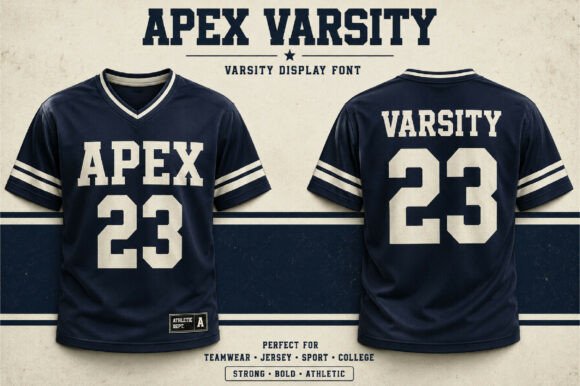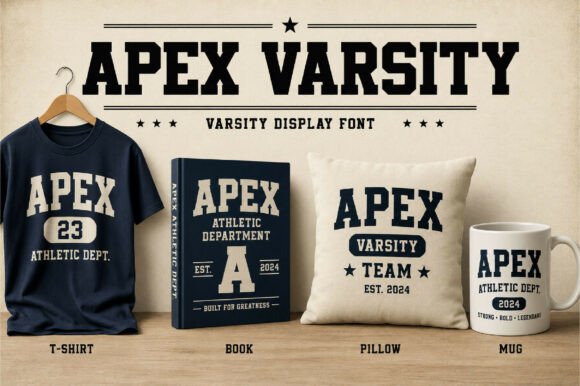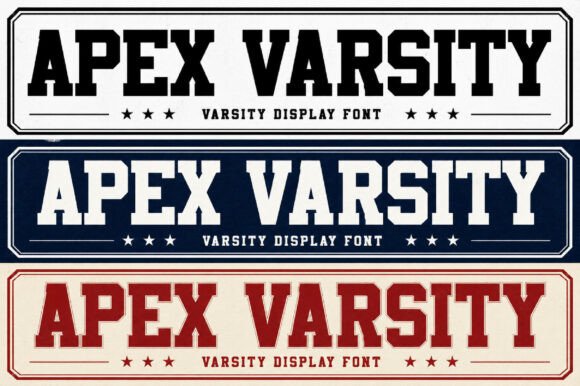
Apex Varsity Font: Unleash the Power of Sports Typography
In the world of design, typography plays a crucial role in conveying the message and tone of a project. When it comes to sports-related designs, a bold and confident font is essential to capture the energy and competitive spirit of the game. This is where Apex Varsity Font comes in – a powerful display font inspired by classic college, varsity, and athletic lettering.
Apex Varsity boasts a bold slab structure, strong block shapes, and sharp cut details that deliver a confident sports-style look. The font’s strong uppercase design makes it perfect for projects that need energy, authority, and competitive spirit. The bold and chunky lettering instantly stands out, making it ideal for headlines, badges, labels, championship graphics, and statement display typography.
Apex Varsity is a versatile font that can be used for a wide range of design projects, including:
- Team logos: Create a bold and confident logo for your sports team with Apex Varsity.
- Jersey designs: Give your jersey designs a professional and athletic look with this powerful font.
- School graphics: Use Apex Varsity to create eye-catching graphics for school events, sports teams, and clubs.
- Posters: Create bold and attention-grabbing posters for sports events, tournaments, and championships.
- Merchandise and apparel: Add a touch of athletic style to your merchandise and apparel designs with Apex Varsity.
- Event branding: Use this font to create a consistent and confident brand identity for your sports events.
Classic Sports Lettering with a Modern Twist
Apex Varsity combines classic sports lettering with a clean modern finish, making it suitable for both print and digital use. The font’s classic inspiration is evident in its bold slab structure and strong block shapes, while its modern finish gives it a fresh and contemporary look. This blend of old and new makes Apex Varsity a versatile font that can be used in a variety of design contexts.
Apex Varsity is a perfect fit for designers and crafters who want to add a touch of athletic style to their projects. Whether you’re a professional designer or a DIY enthusiast, this font is easy to use and can be incorporated into your designs with ease. With Apex Varsity, you can:
- Create stunning sports-themed designs that capture the energy and competitive spirit of the game.
- Add a bold and confident touch to your typography.
- Experiment with different design styles and ideas.
Here are some key features of Apex Varsity Font:
- Bold slab structure and strong block shapes.
- Sharp cut details for a confident sports-style look.
- Strong uppercase design.
- Perfect for headlines, badges, labels, championship graphics, and statement display typography.
- Suitable for both print and digital use.
Apex Varsity Font is a powerful display font that is perfect for designers and crafters who want to add a touch of athletic style to their projects. With its bold slab structure, strong block shapes, and sharp cut details, this font delivers a confident sports-style look that instantly stands out. Whether you’re creating team logos, jersey designs, school graphics, posters, merchandise, apparel, or event branding, Apex Varsity is the perfect choice. So why wait? Get your hands on Apex Varsity Font today and unleash the power of sports typography in your designs!